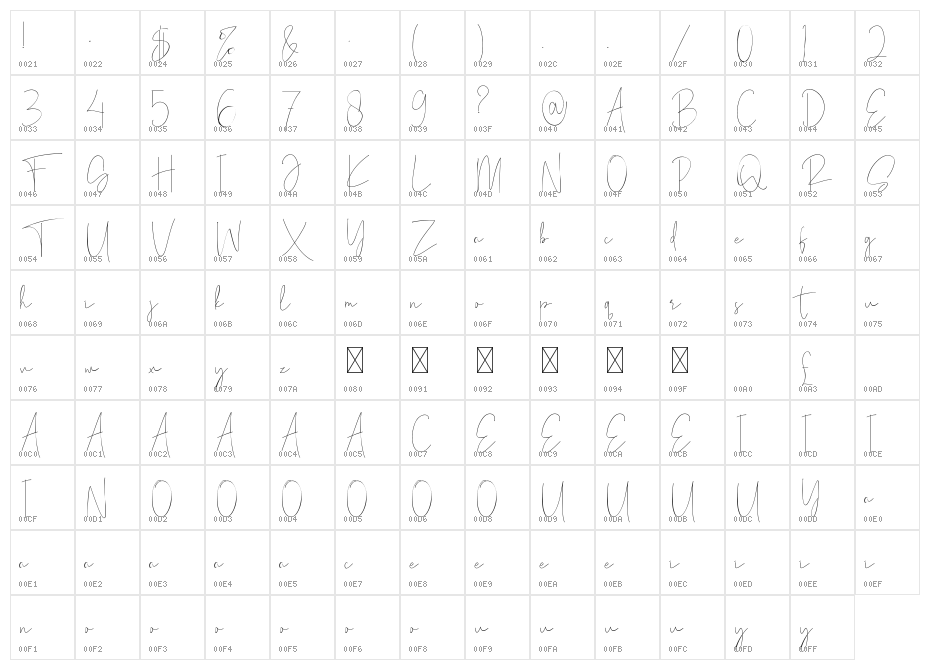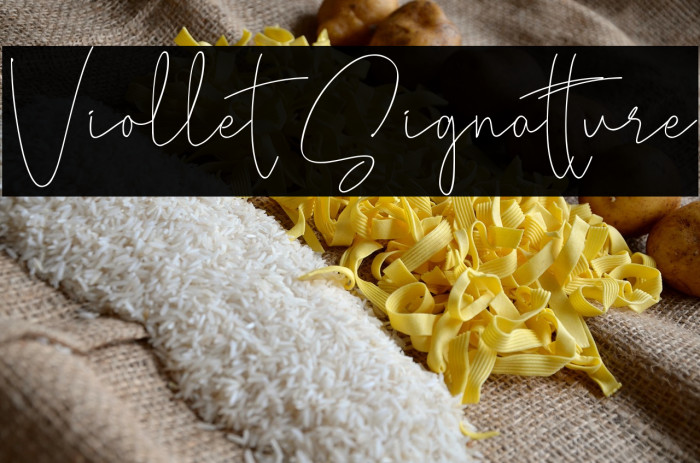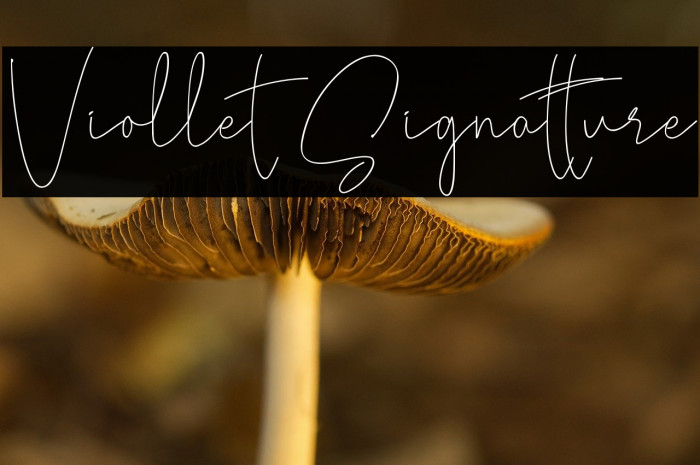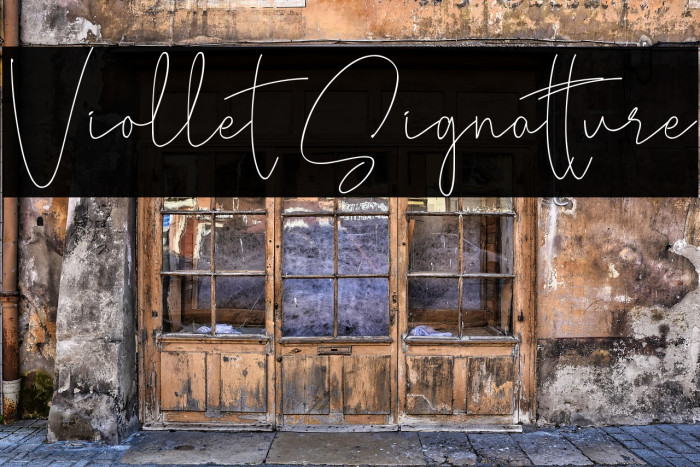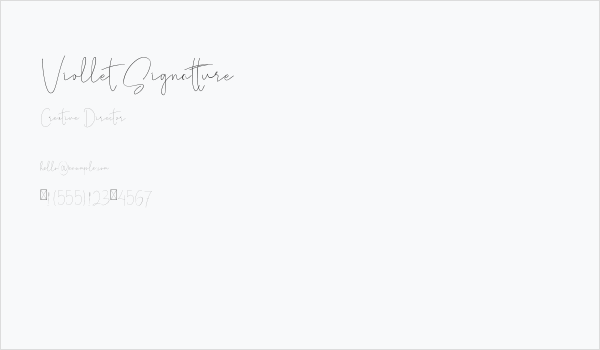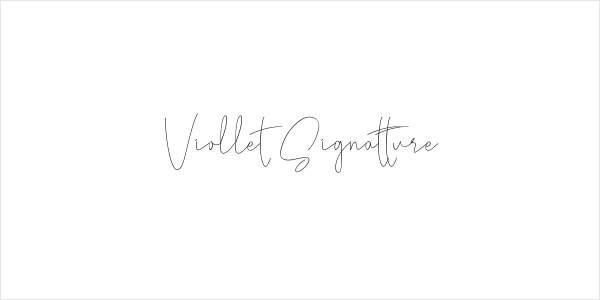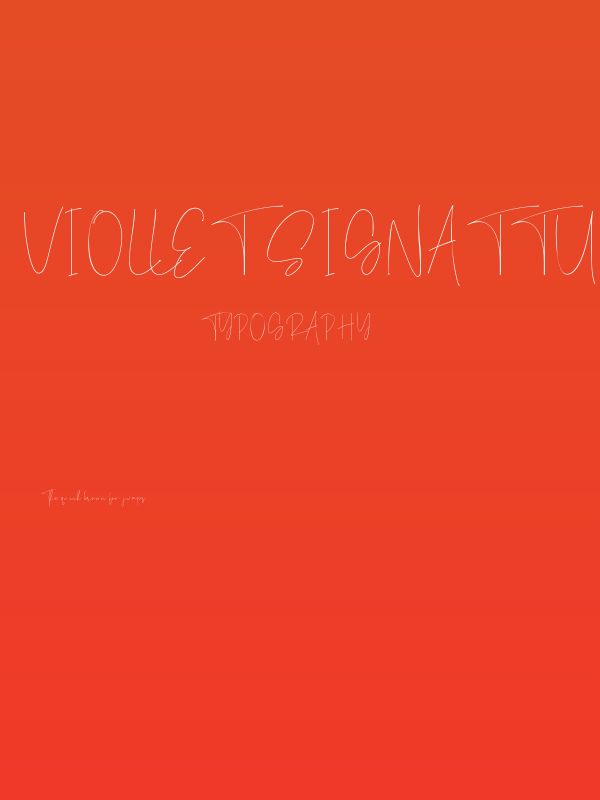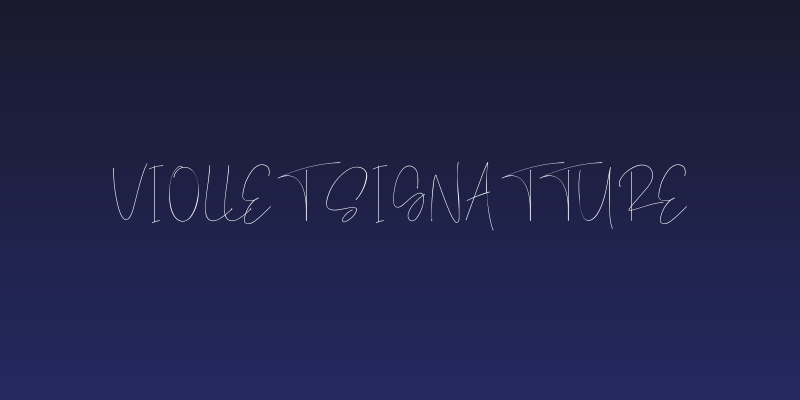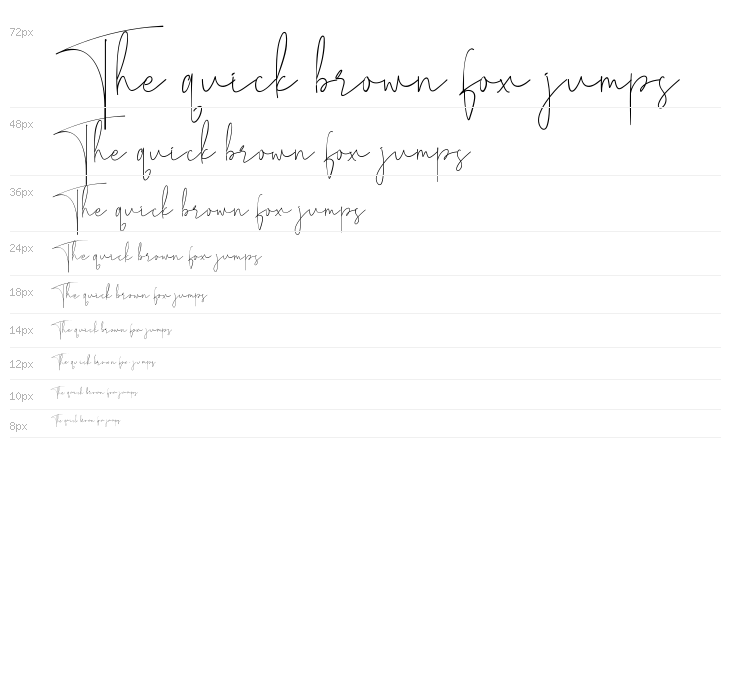
Viollet Signatture Font
Viollet Signatture Description
This font exudes a delicate and elegant handwritten style, characterized by its flowing, cursive letterforms. The uppercase letters are tall and slender, with a graceful, airy quality that suggests movement and fluidity. The lowercase letters maintain a consistent style, with elongated ascenders and descenders that add to the font's sophisticated appearance. The numerals are similarly styled, with a slight slant that complements the overall aesthetic. Special characters are seamlessly integrated, maintaining the font's cohesive look. The thin strokes and consistent line weight contribute to a refined and polished finish, making it ideal for projects that require a touch of elegance and personal flair.
| Proposed Projects | Ideal for wedding invitations, personal branding, elegant stationery, and artistic projects. |